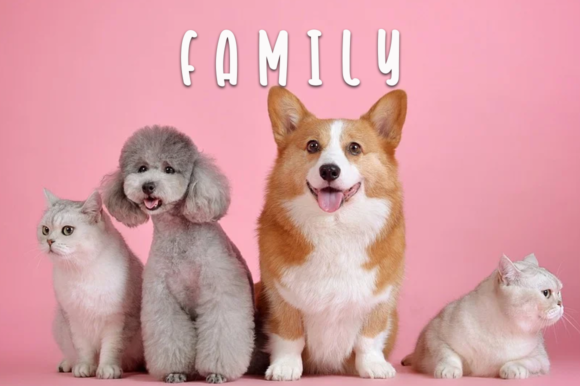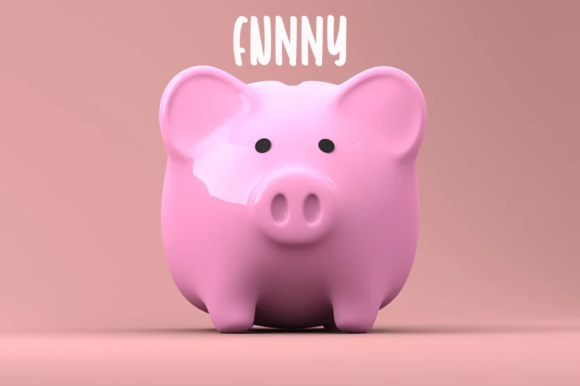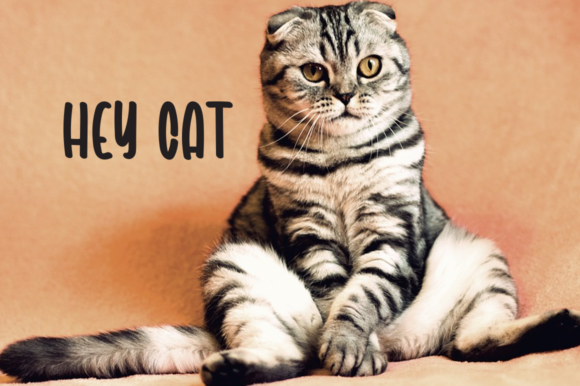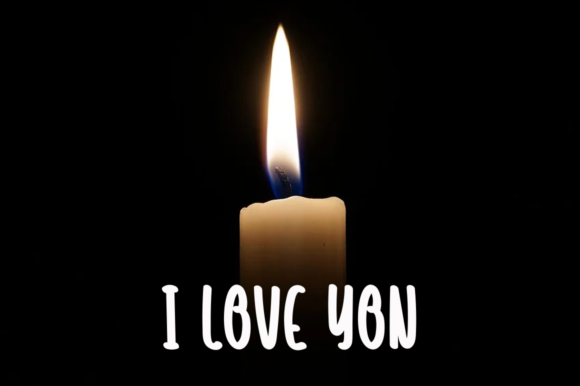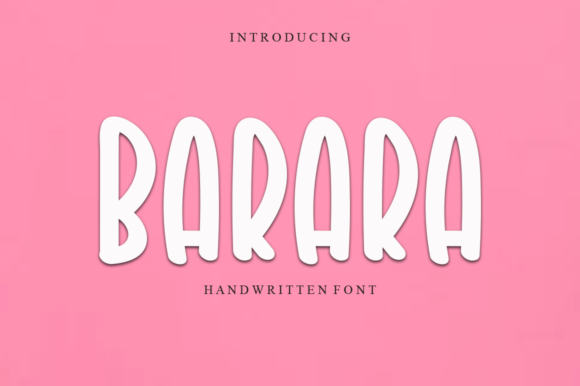
Introducing Barara Font: The Cute and Solemn Display Font for Creative Projects
Are you tired of using the same old fonts for your creative projects? Look no further than Barara Font, a charming and versatile display font that’s perfect for elevating the look of any creation. Whether you’re a designer, crafter, or DIY enthusiast, Barara Font is sure to become your new go-to font for a wide range of applications.
What Makes Barara Font So Special?
Barara Font is a unique and captivating display font that’s both cute and solemn, making it perfect for a variety of creative projects. Its distinctive design features a playful, yet elegant style that’s sure to grab attention and leave a lasting impression. With Barara Font, you can add a touch of personality and whimsy to any design, from stationery and watermarks to logos, branding, packaging, name tags, and more.
Barara Font is a dream come true for designers and crafters who want to add a personal touch to their work. Whether you’re creating custom stationery, designing a logo for a new business, or crafting handmade products, Barara Font is the perfect choice. Its versatility and charm make it easy to use in a wide range of applications, from digital designs to print materials.
So, what can you create with Barara Font? The possibilities are endless! Here are just a few ideas to get you started:
• Stationery: Use Barara Font to create custom stationery, including greeting cards, invitations, and letterheads.
• Logos and Branding: Add a touch of personality to your logo or branding with Barara Font’s unique and captivating design.
• Packaging: Make your products stand out with custom packaging featuring Barara Font.
• Name Tags: Create custom name tags for events, parties, or everyday use.
• Watermarks: Add a touch of elegance to your digital designs with Barara Font watermarks.
Why Choose Barara Font?
So, why should you choose Barara Font for your creative projects? Here are just a few reasons:
• Unique Design: Barara Font features a one-of-a-kind design that’s sure to grab attention.
• Versatility: Use Barara Font in a wide range of applications, from digital designs to print materials.
• Ease of Use: Barara Font is easy to use and pairs well with a variety of other fonts.
• Cute and Solemn: Barara Font’s distinctive design is both cute and solemn, making it perfect for a variety of creative projects.
Get Ready to Elevate Your Designs with Barara Font
Ready to take your creative projects to the next level with Barara Font? With its unique design, versatility, and ease of use, Barara Font is the perfect choice for designers, crafters, and DIY enthusiasts. So, why wait? Try Barara Font today and see the difference it can make in your work!
In conclusion, Barara Font is a charming and versatile display font that’s perfect for creative projects of all kinds. Its unique design, versatility, and ease of use make it a must-have for designers, crafters, and DIY enthusiasts. Whether you’re looking to add a touch of personality to your stationery, create a custom logo, or craft handmade products, Barara Font is the perfect choice. So, what are you waiting for? Try Barara Font today and elevate the look of your creations!